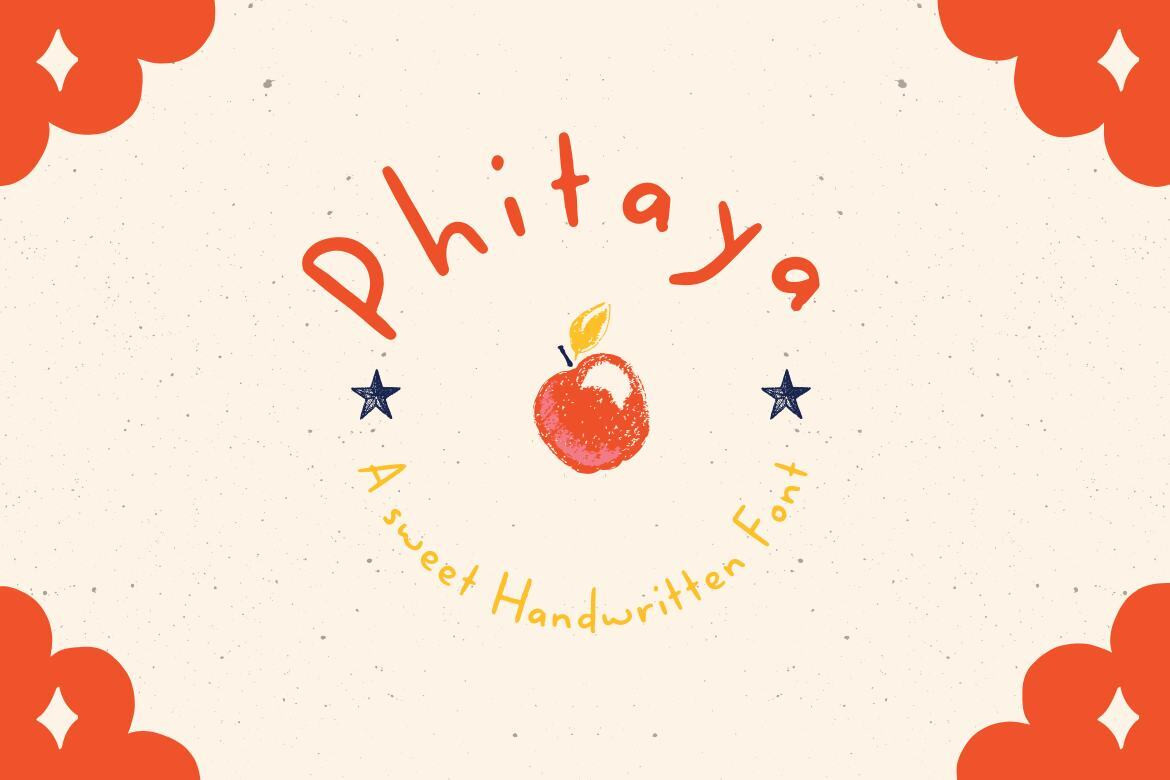
Let’s having fun with the sweet and fun handwritten font Phitaya that will brighten all your handy works. It is a suitable choice for children-themed work, book, logo, quote etc.deeezy.com/product/33281/phita…